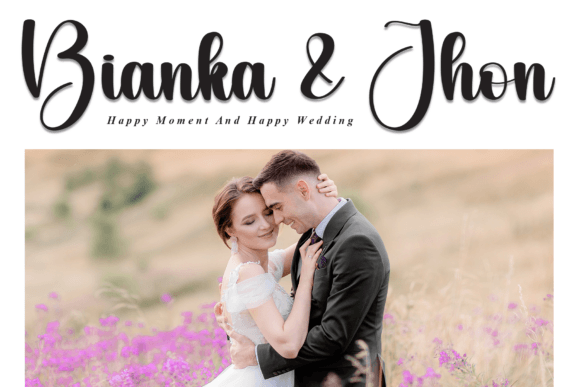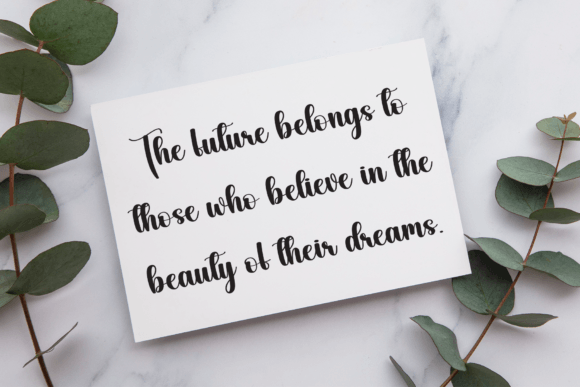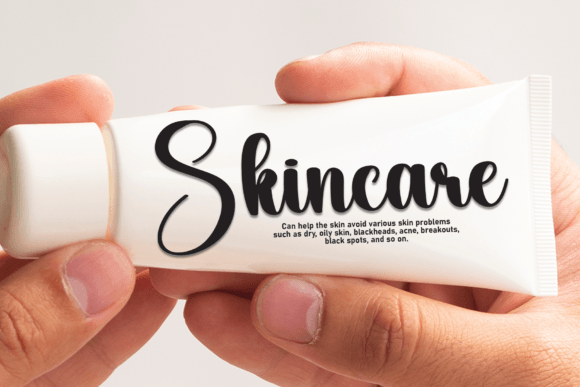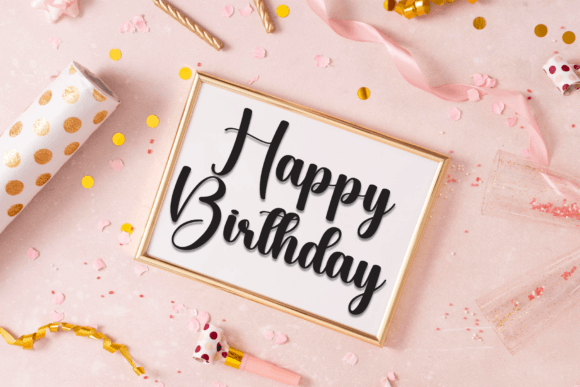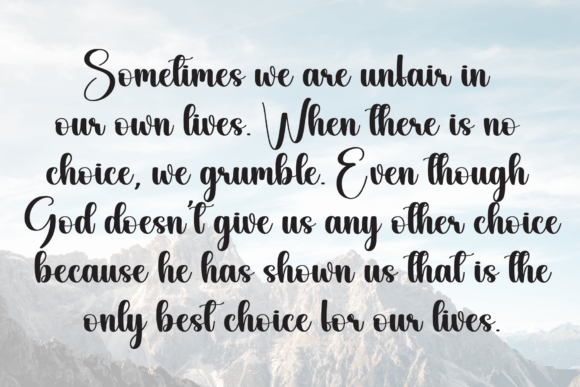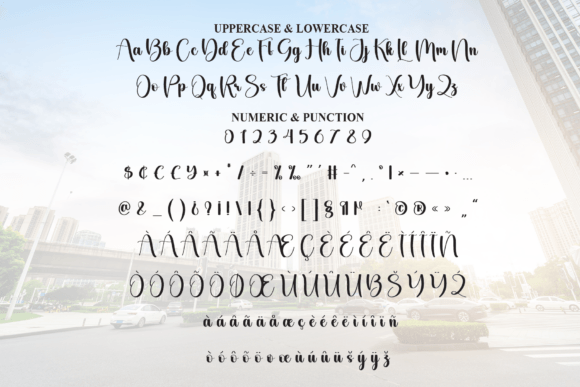
Introducing Downtown Font: The Ultimate Choice for Eye-Catching Designs
Are you tired of using the same old fonts for your designs? Do you want to add a touch of personality and energy to your projects? Look no further than Downtown Font, a bold, handwritten font that’s perfect for making a statement. With its casual and lively style, Downtown Font is ideal for designers and crafters who want to create eye-catching designs that stand out from the crowd.
The Characteristics of Downtown Font
Downtown Font is a bold, handwritten font that’s characterized by its thick, expressive strokes. These strokes give the font a fun, energetic vibe that’s perfect for designs that need to make a statement. The font’s casual and lively style makes it ideal for a wide range of projects, from posters and flyers to social media graphics and website headers.
Why Choose Downtown Font?
So why choose Downtown Font over other fonts? Here are just a few reasons:
- Unique and eye-catching: Downtown Font’s bold, expressive strokes make it stand out from other fonts. Its unique style ensures that your designs will grab attention and leave a lasting impression.
- Versatile: Downtown Font is perfect for a wide range of projects, from fun and playful designs to more serious and professional ones. Its casual and lively style makes it ideal for designs that need to convey a sense of energy and creativity.
- Easy to read: Despite its bold and expressive strokes, Downtown Font is easy to read, even at small sizes. This makes it perfect for designs that need to convey a message or tell a story.
How to Use Downtown Font
Downtown Font is perfect for a wide range of design projects, including:
- Posters and flyers: Use Downtown Font to create eye-catching posters and flyers that grab attention and leave a lasting impression.
- Social media graphics: Downtown Font is perfect for social media graphics, including Facebook and Twitter headers, Instagram graphics, and more.
- Website headers: Use Downtown Font to create bold and eye-catching website headers that set the tone for your brand.
- Crafting projects: Downtown Font is also perfect for crafting projects, including handmade cards, scrapbooking, and more.
Tips and Tricks for Using Downtown Font
Here are a few tips and tricks for using Downtown Font:
- Use it sparingly: While Downtown Font is perfect for making a statement, it can be overwhelming if used too much. Use it sparingly to add emphasis and create visual interest.
- Pair it with other fonts: Downtown Font pairs well with other fonts, including serif and sans-serif fonts. Experiment with different pairings to find the one that works best for your design.
- Experiment with colors: Downtown Font looks great in a wide range of colors, from bold and bright to more muted and subtle. Experiment with different colors to find the one that works best for your design.
Downtown Font is a bold, handwritten font that’s perfect for designers and crafters who want to create eye-catching designs that stand out from the crowd. Its casual and lively style, combined with its thick, expressive strokes, make it ideal for a wide range of projects. Whether you’re creating posters and flyers, social media graphics, website headers, or crafting projects, Downtown Font is the ultimate choice for making a statement.